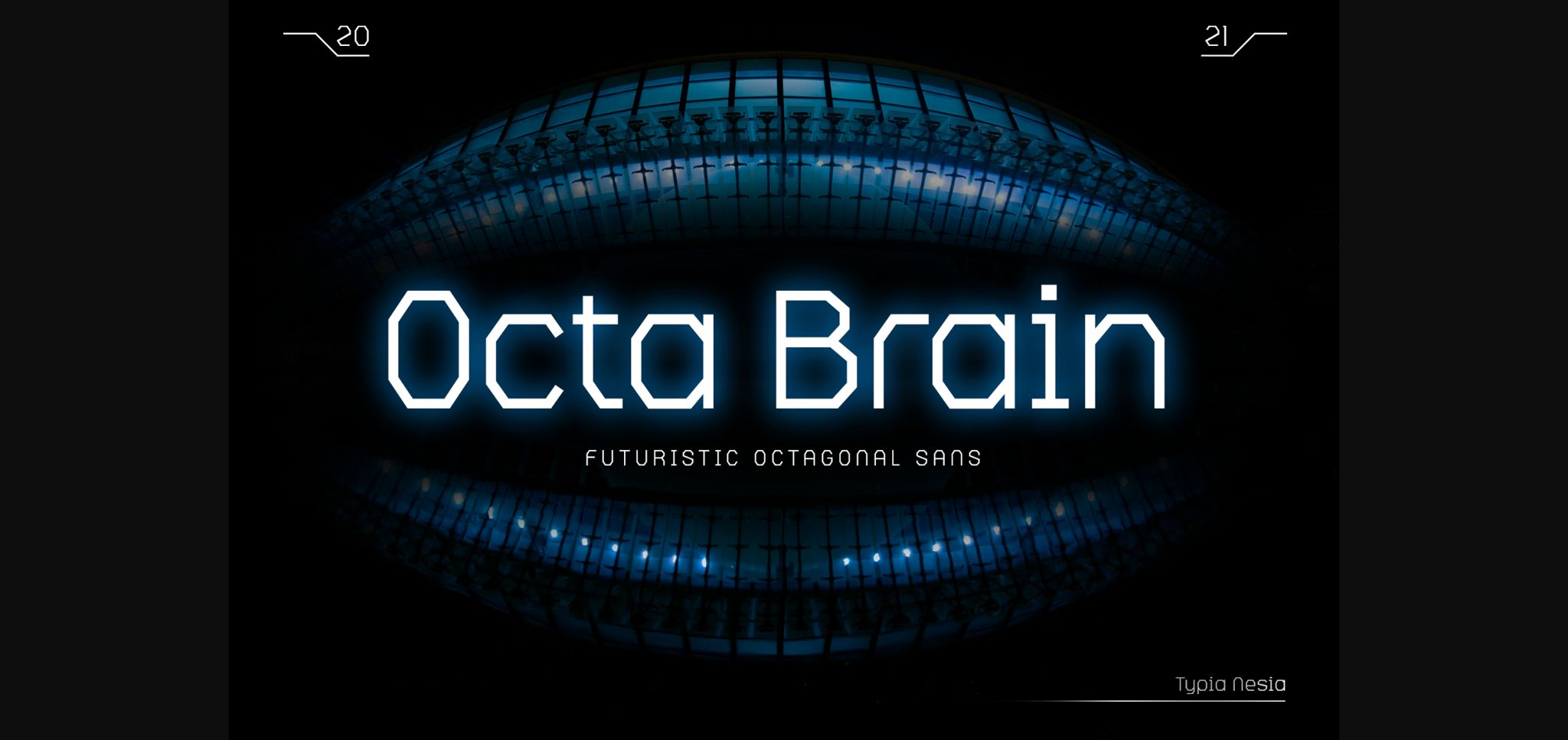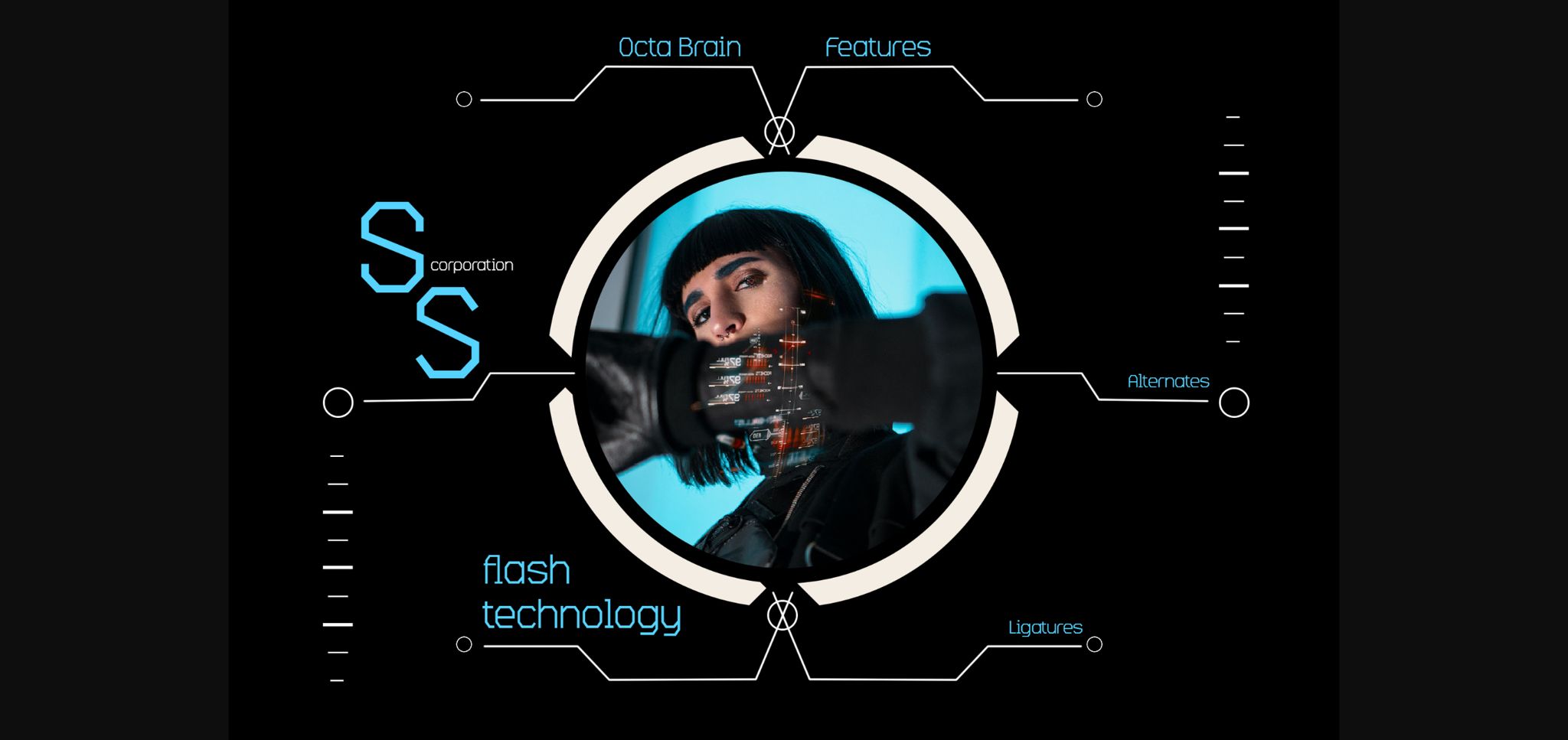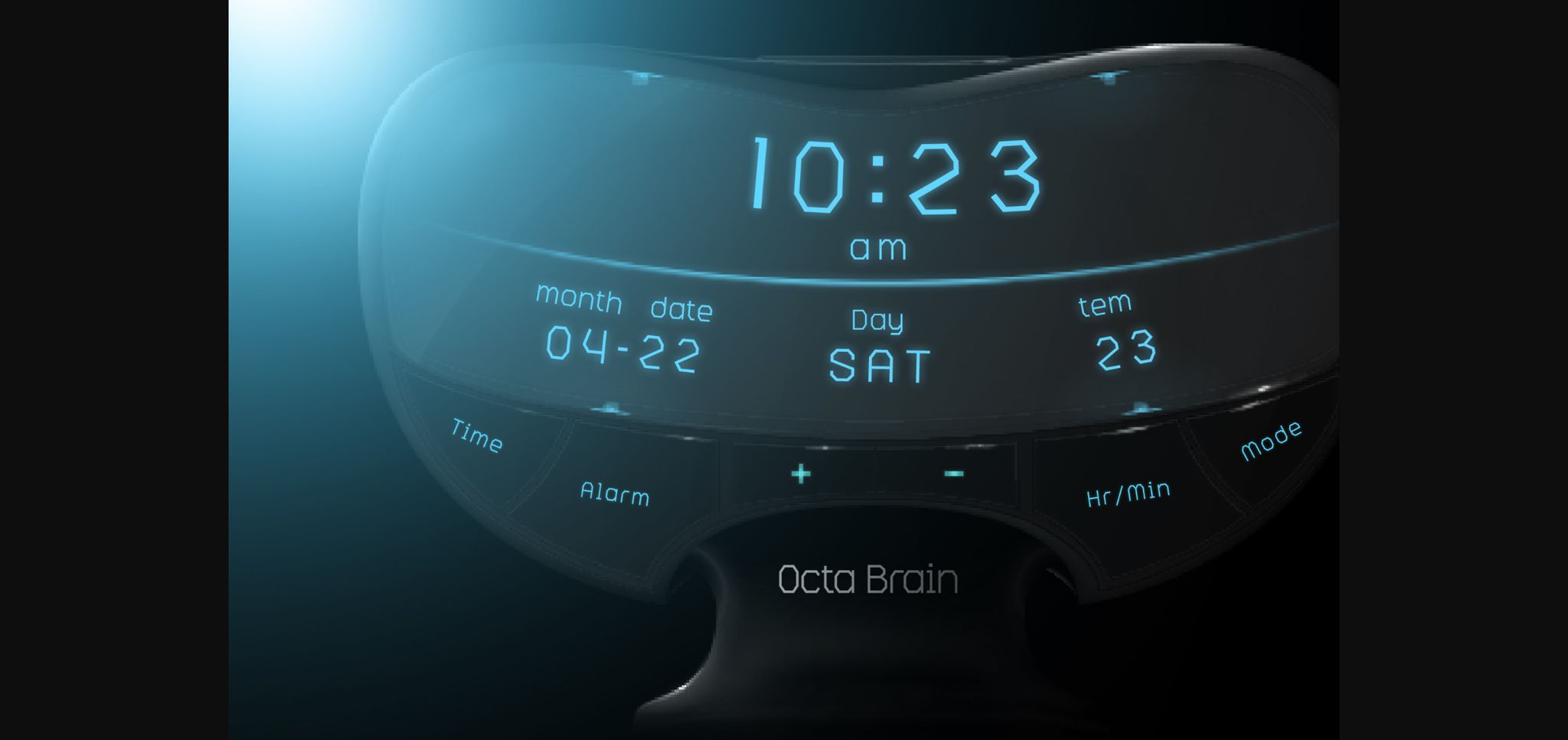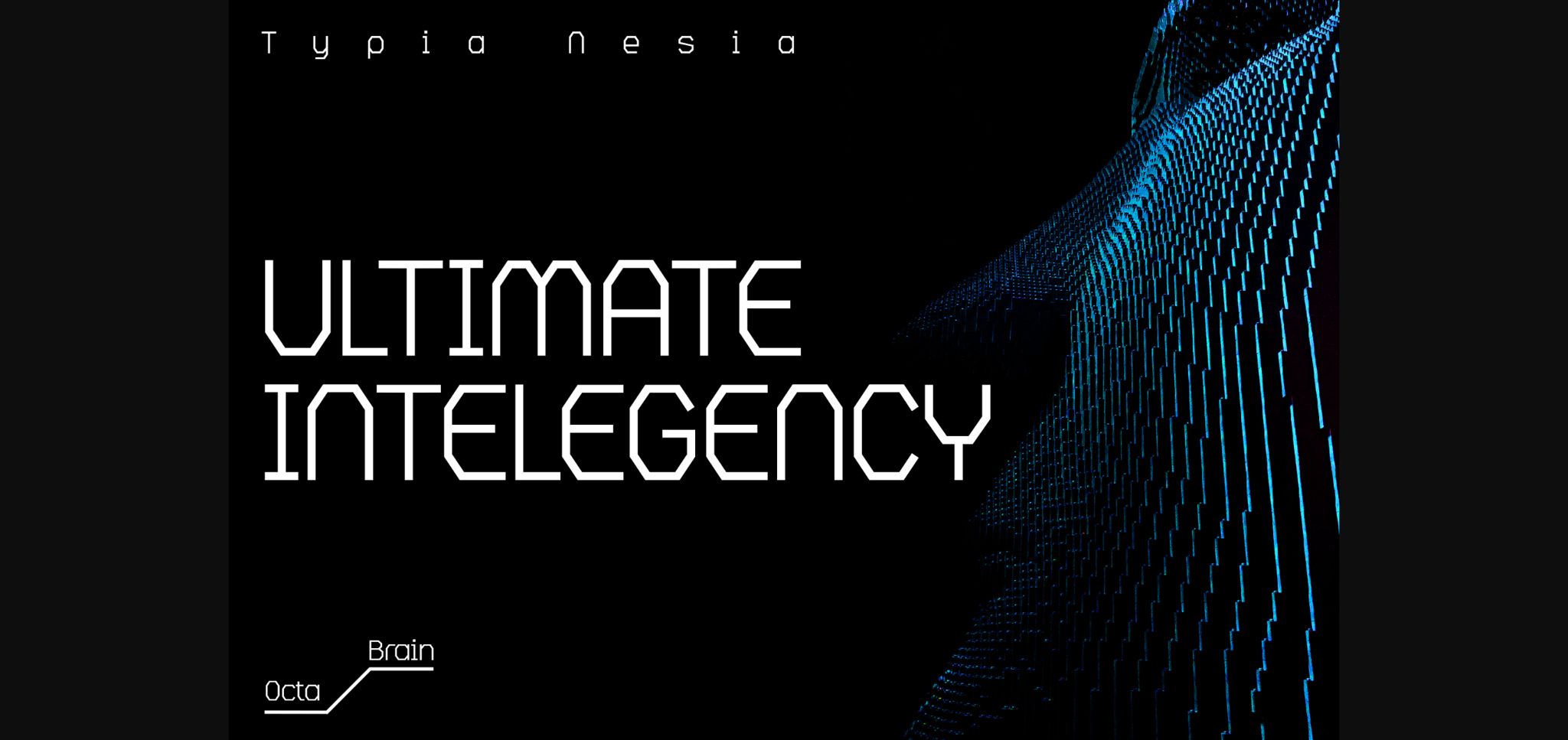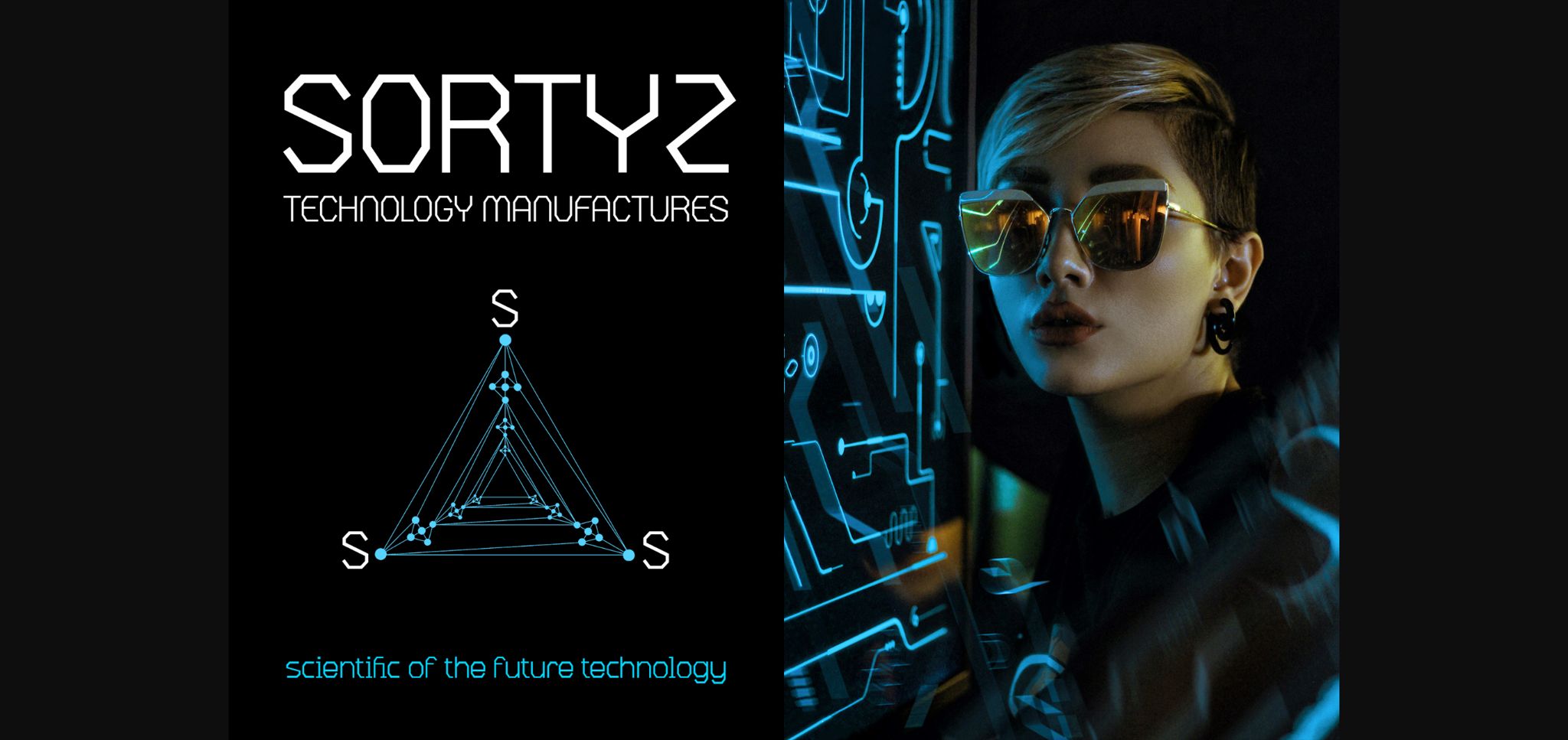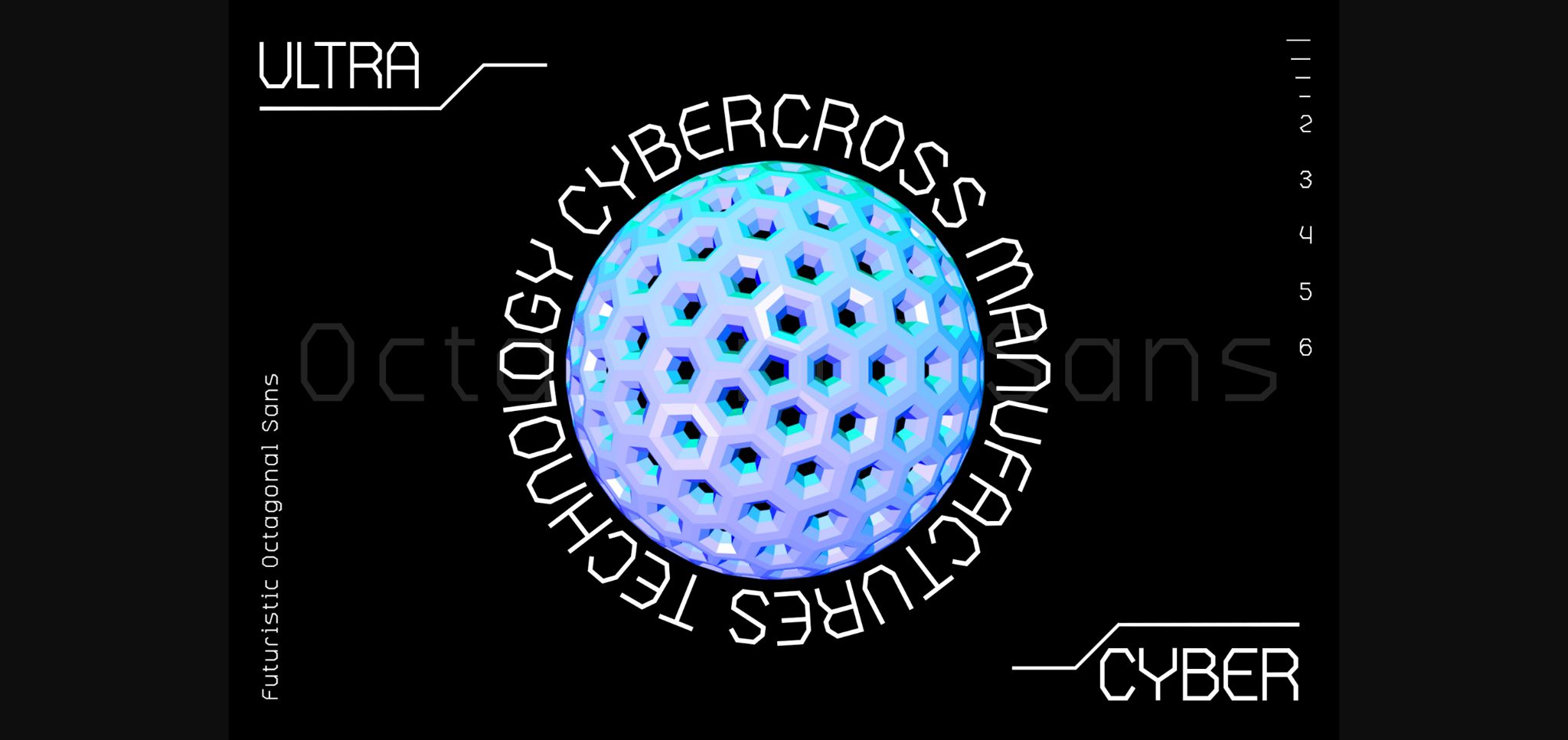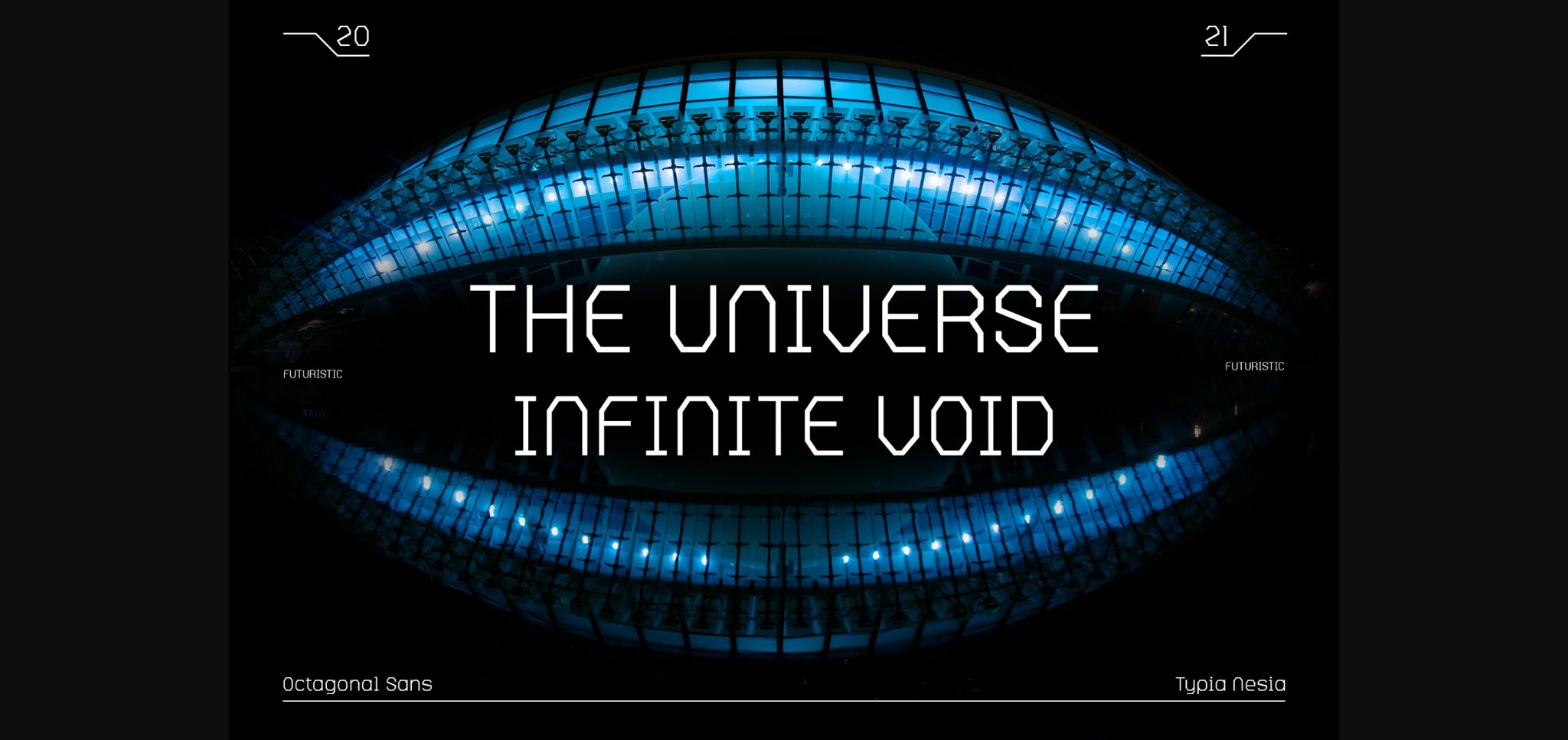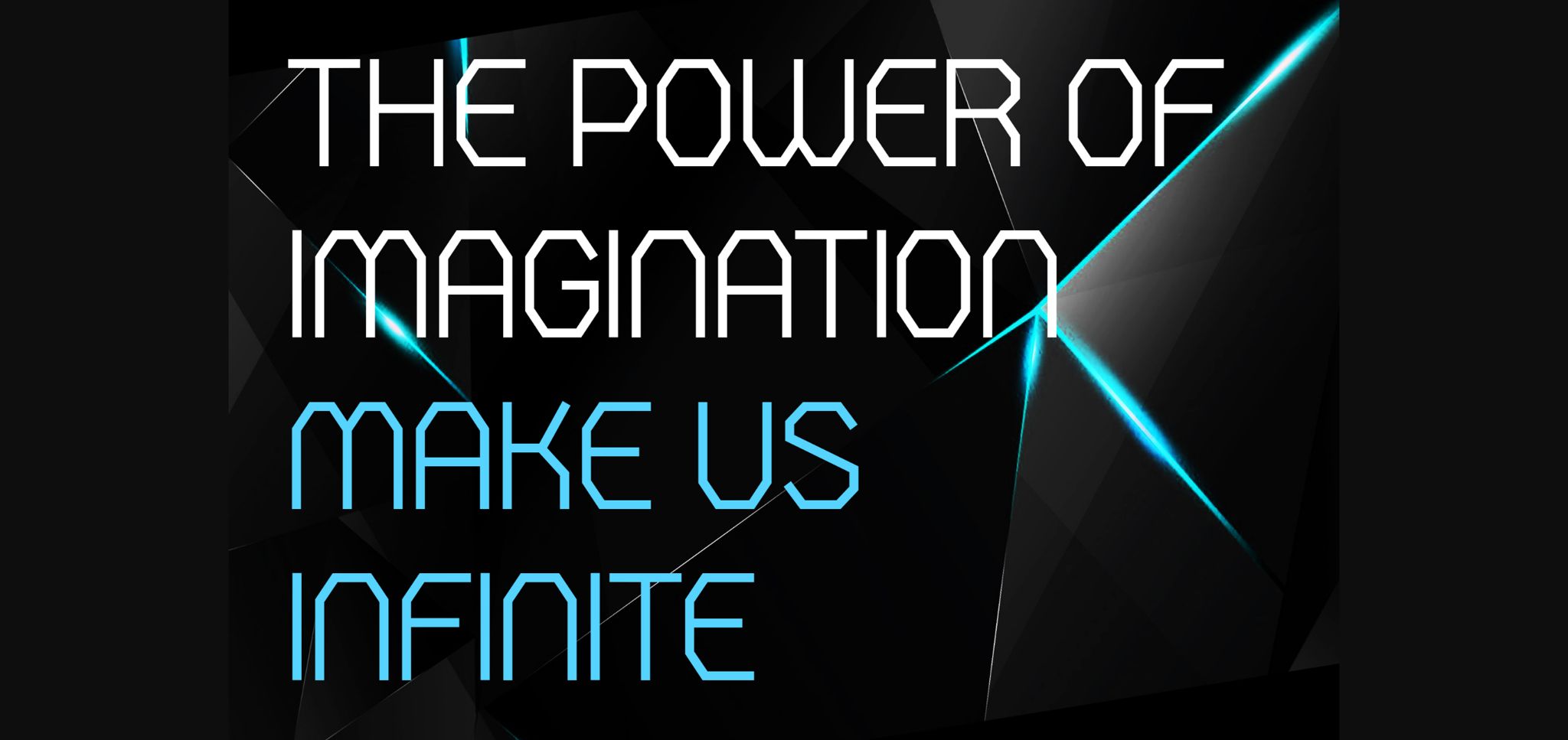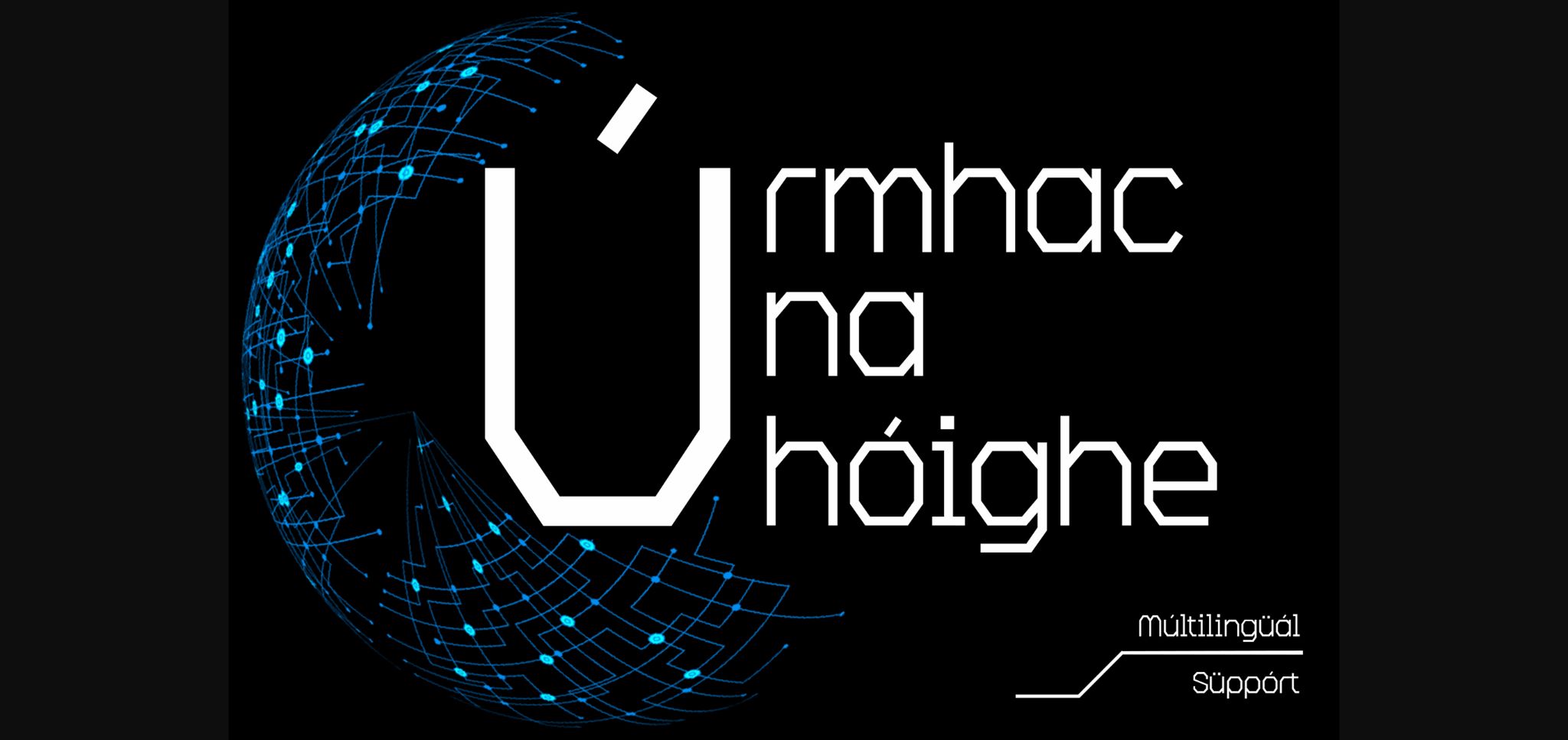
Octa Brain Font
About Octa Brain Font
Octa Brain is a Scifi Sans Serif Font perfect for your upcoming projects, such as logo branding, editorial design, stationery design, sport design, 80s retro design, game industry, music poster, blog design, modern advertising design, card invitation, art quote, home decor, book/cover title, special events and any more.